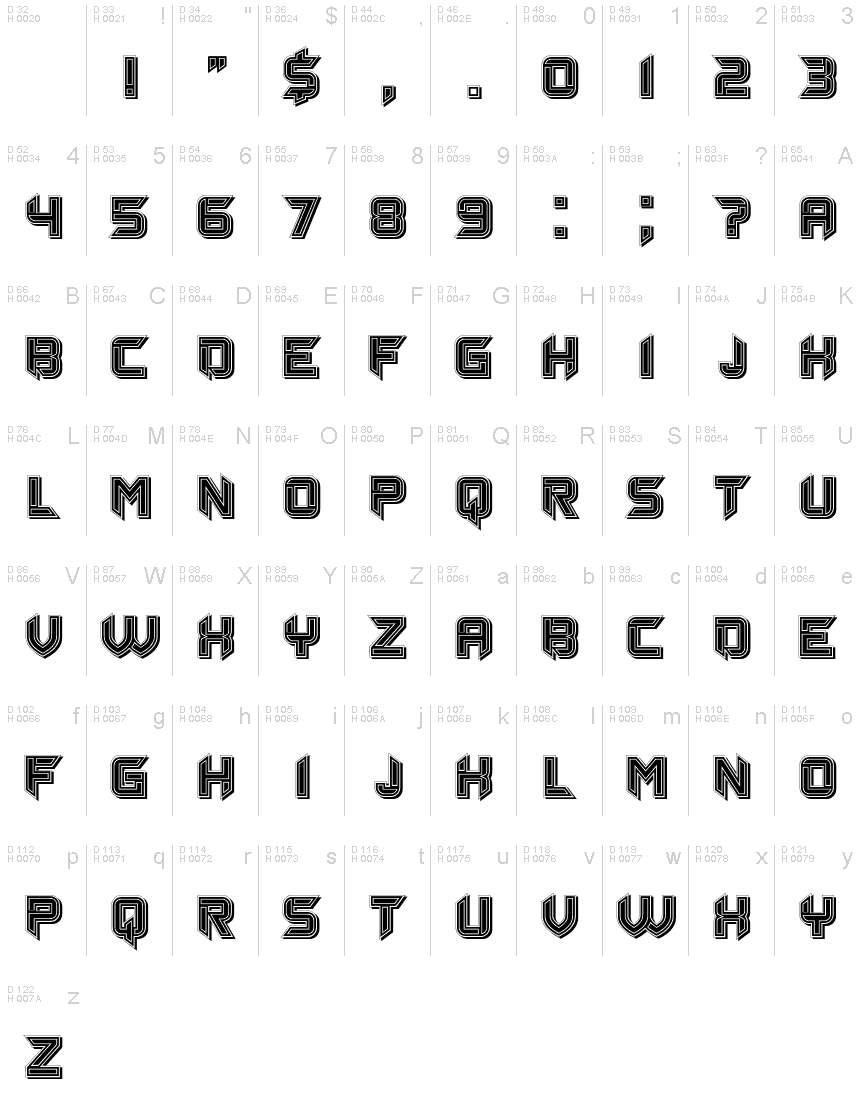
Dubs Regular
Dubs, a techno-inspired display font designed by Vladimir Nikolic, is the perfect choice for projects that require a bold and futuristic aesthetic. Its expanded width adds an extra layer of impact to any design, making it especially suitable for attention-grabbing headlines and logos. With its clean lines and geometric shapes, Dubs brings a cutting-edge vibe to branding materials, posters, and even packaging designs. Its bold weight ensures that your message will be communicated with confidence and authority. So why settle for ordinary when you can go bold with Dubs?